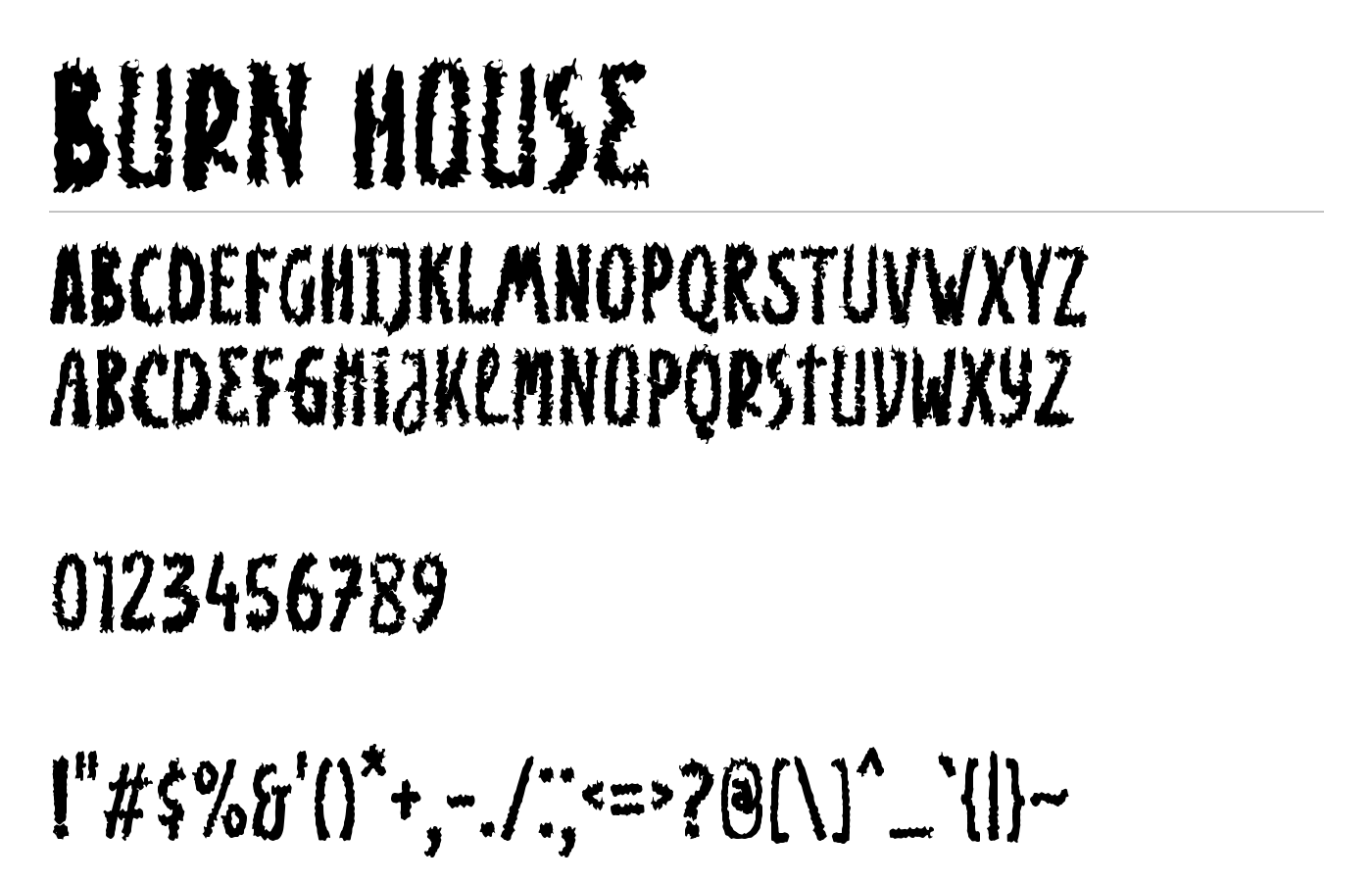
Burn House is a bold, uppercase display font with a distressed, flame-like texture that gives it a raw, edgy personality. Its irregular, jagged strokes create a dramatic and intense vibe, making it perfect for horror, thriller, or grunge-themed designs where a bold, eye-catching impact is needed. This font works best for headlines, posters, logos, and branding that seeks to convey tension, danger, or rebellious energy.
Burn House Font